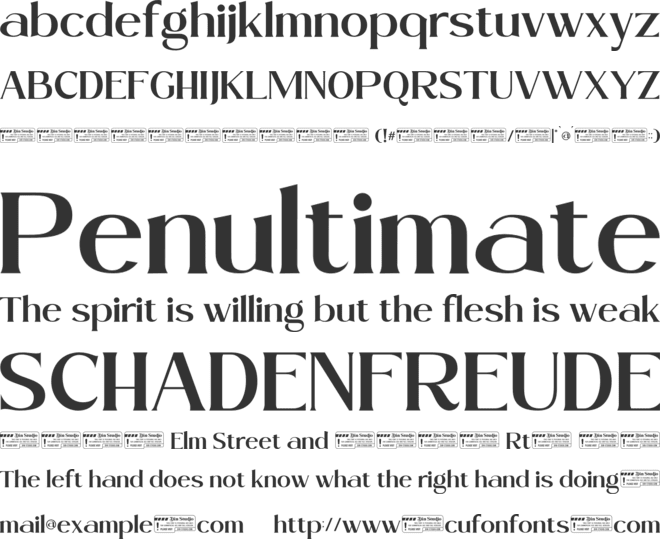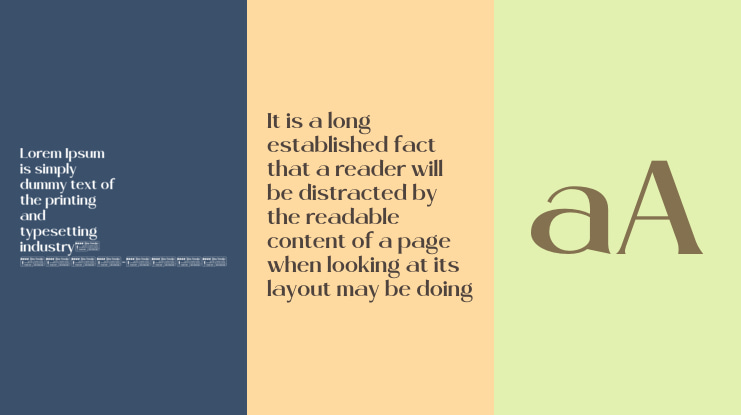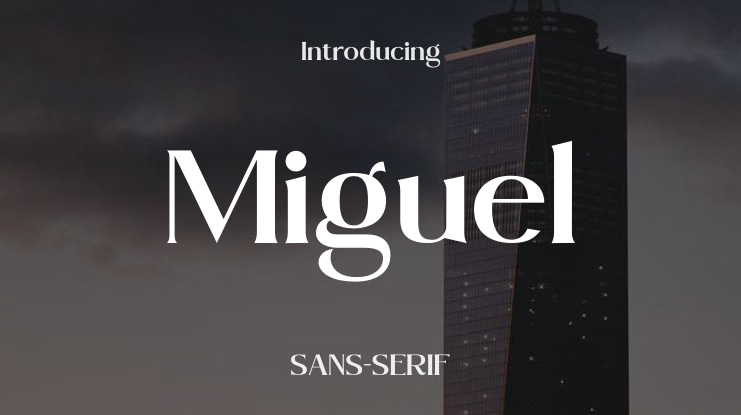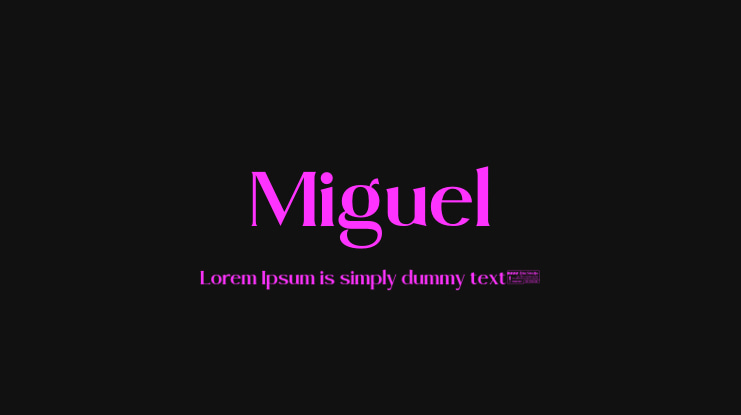
Miguel Font
Hi, Everyone! Want a font to make your branding bold? Looking for a statement font that exudes prominence, style, and adventure? Then we’ve got the answer. Introducing Miguel – A Serif Font Family
Miguel font preview